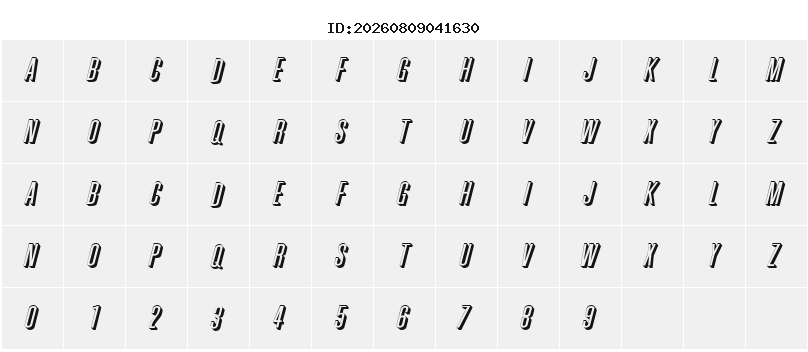
Phoenix Wide Preview
• Font Name: Phoenix Wide
• Full Font Name: Phoenix Wide Italic
About Phoenix Wide.ttf
Phoenix Wide.ttf is a modern, elegant sans-serif font designed for ultimate readability and visual harmony. Perfect for branding, headlines, web design, and print materials.